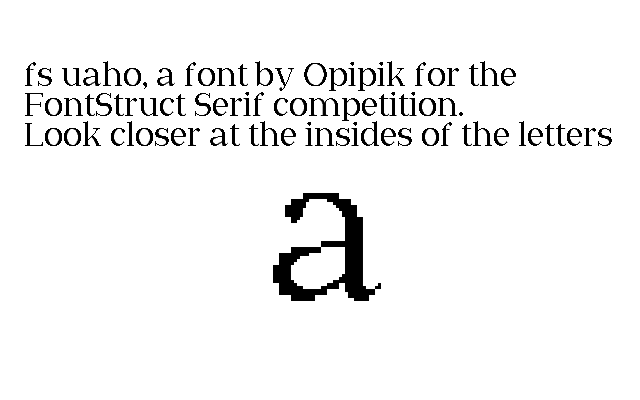
Some delicate little bricks there, they allow more air and light into the glyph's centers making them welcoming and easy to read while the lines maintain their strength. In short: your update of a classical look is successful.